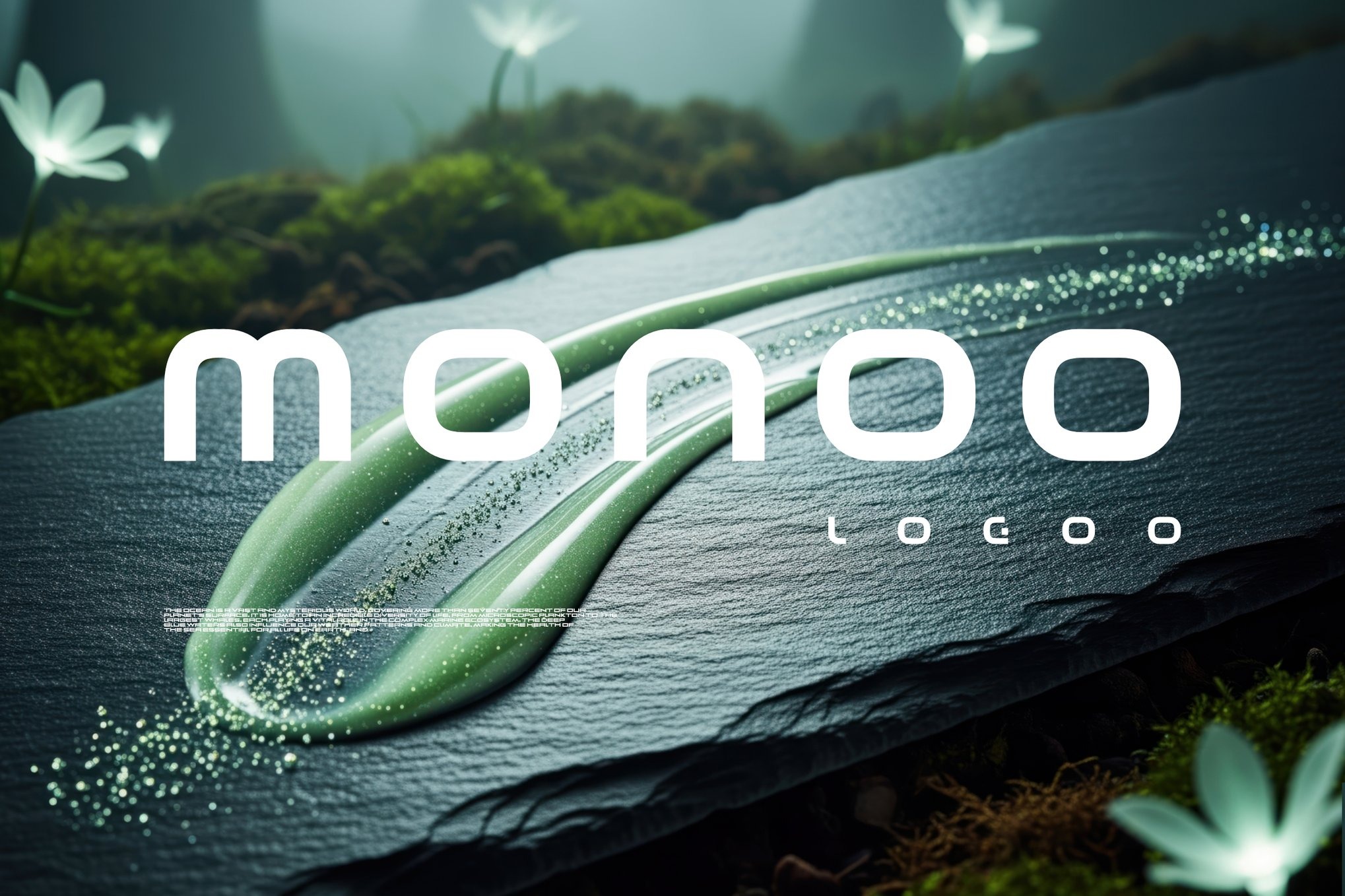
Monoo Logo Font
Monoo Logo Font is a distinctive and expressive font crafted to bring personality, structure, and creative energy into your projects. It feels remarkably grounded and contemporary, offering a sense of democratic accessibility where the message is never overshadowed by the medium. To the viewer, it suggests a personality that is straightforward